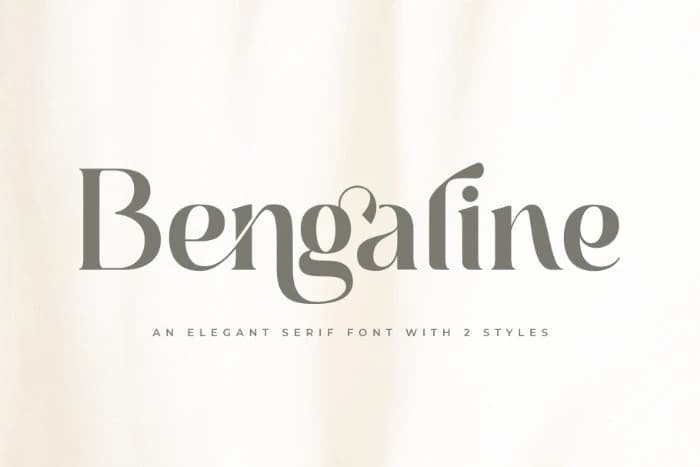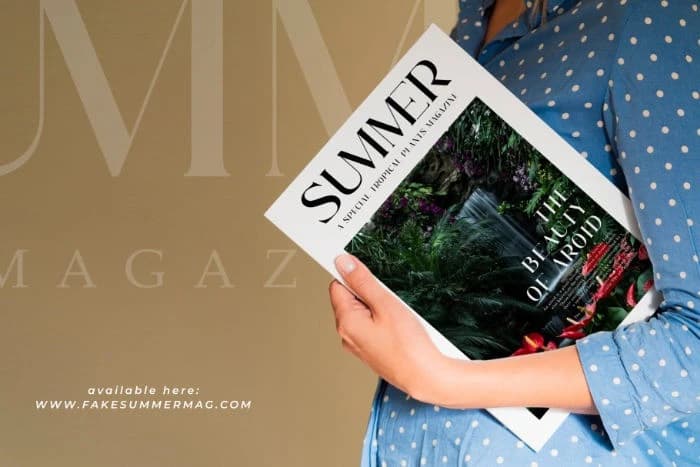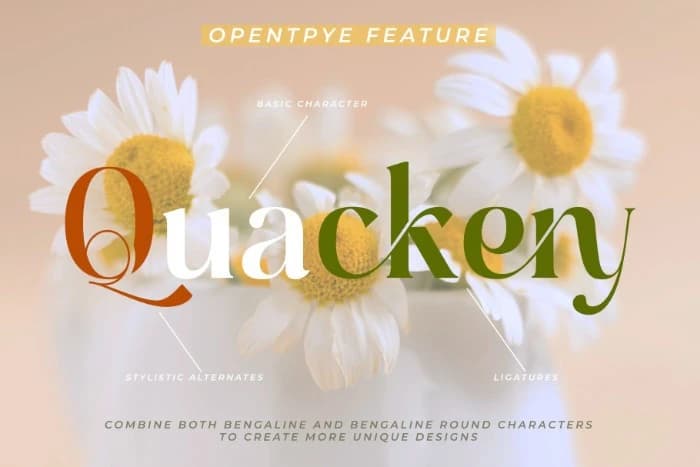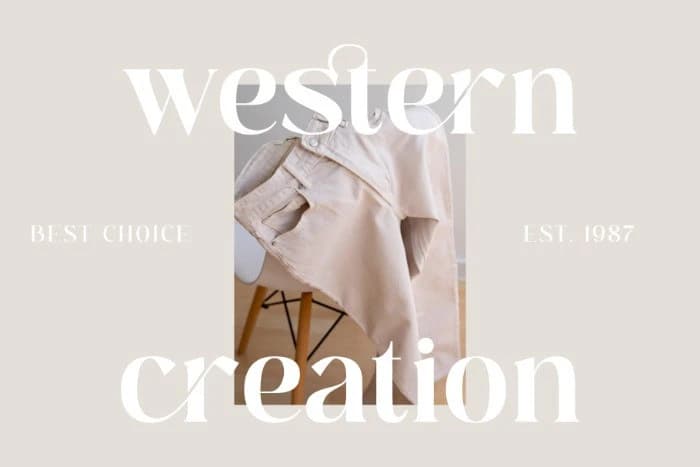
Bengaline Font
Bengaline Font, a classy and elegant serif font that exudes sophistication and style. With its stylish and refined shapes, Bengaline is the perfect choice for branding, logotypes, and a variety of design projects.